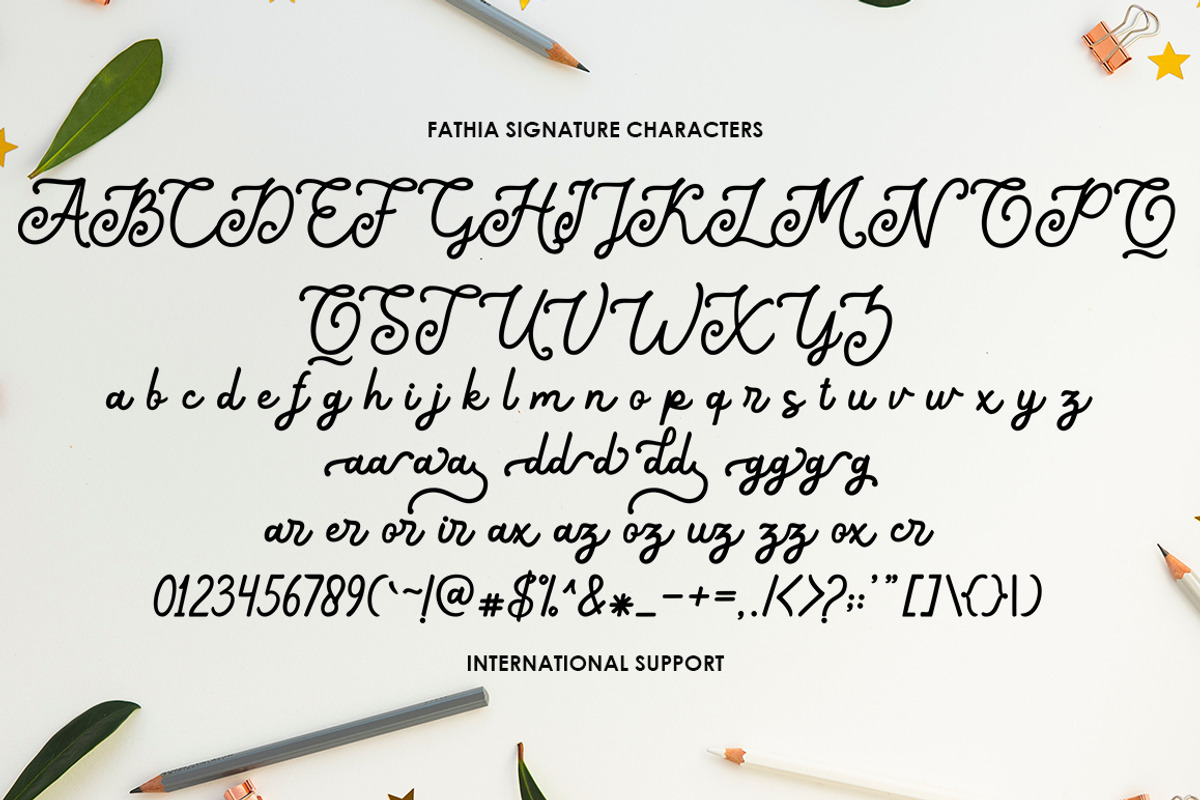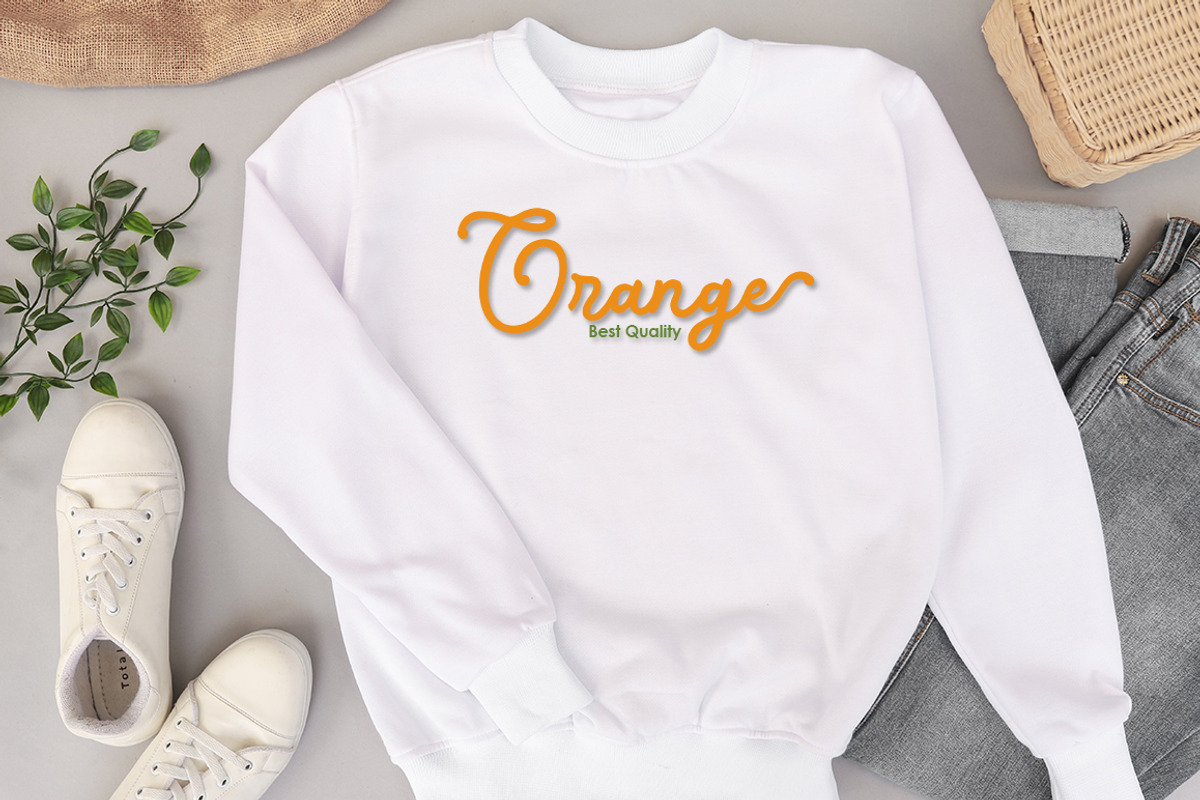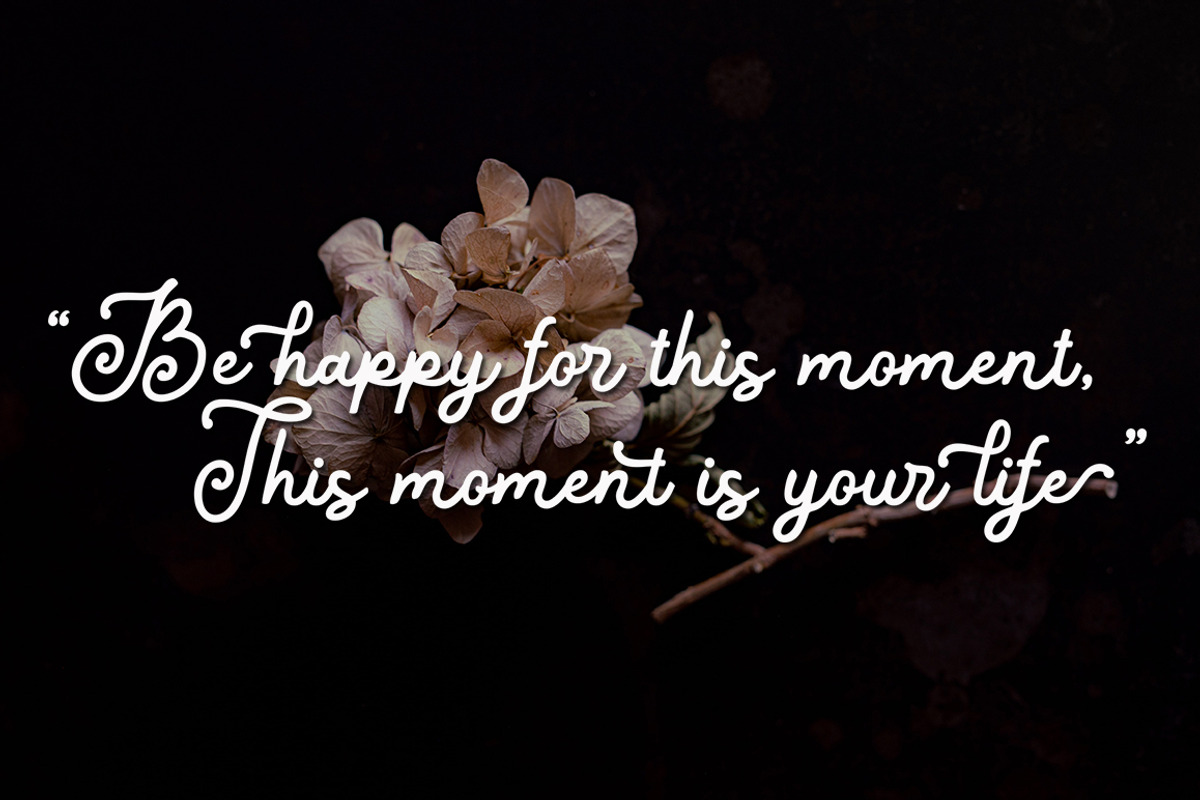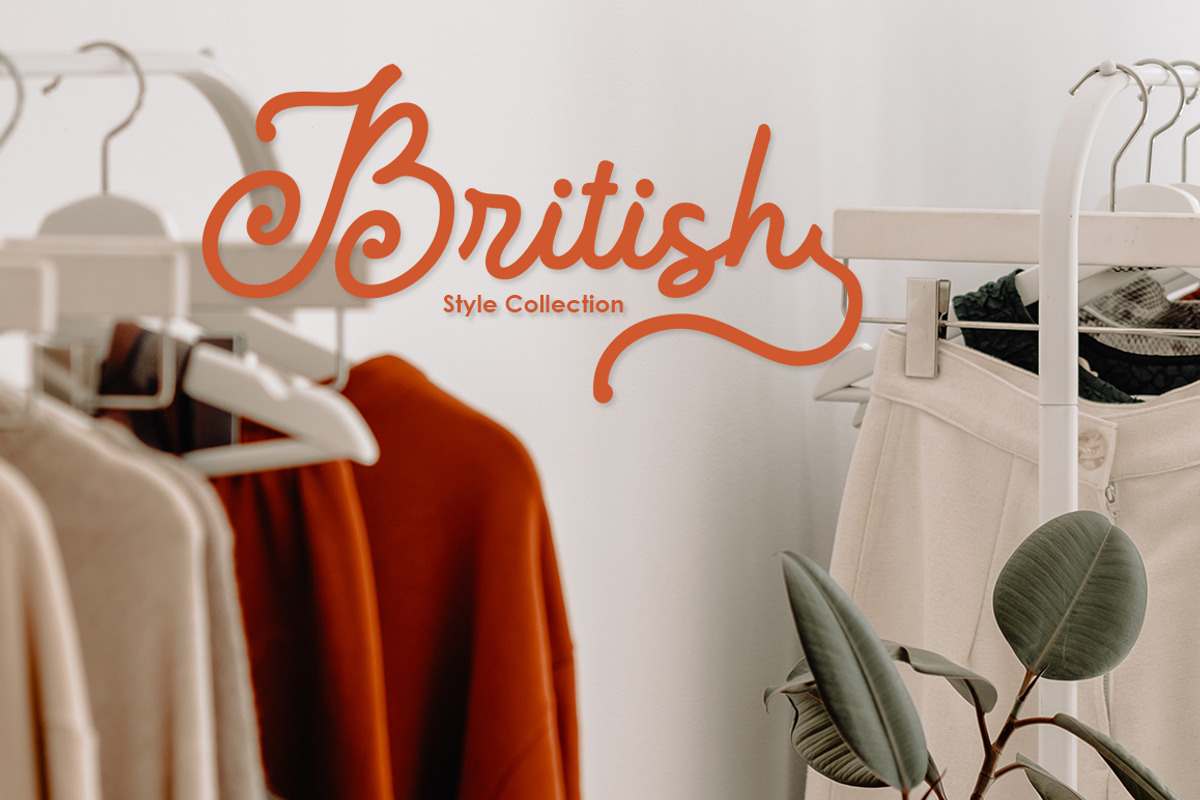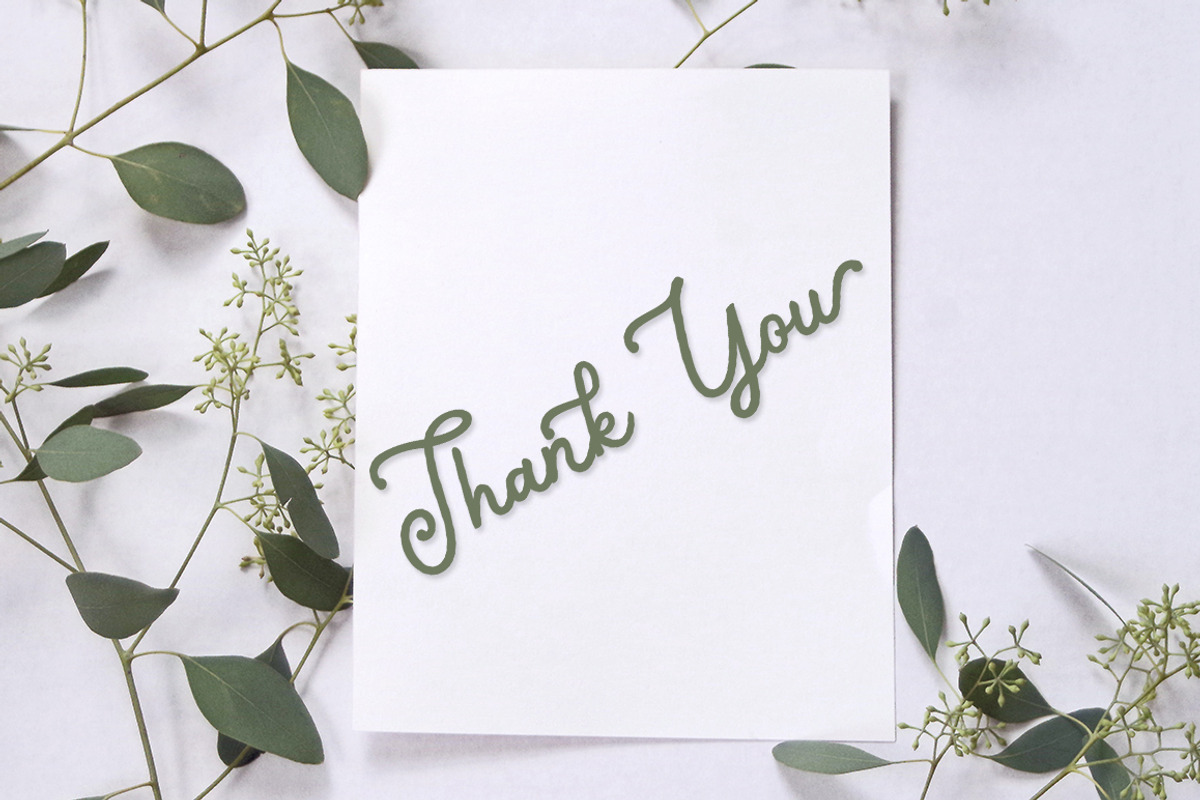
Fathia Signature
Fathia Signature is highly legible Monoline Script typeface, get touch of a bold, classic and fun Vintage Script font, With glyphs and opentype features with stylistic alternates. Can be used for various purposes. such as posters, t-shirt, signage, logos, news, badges etc. To enable the OpenType Stylistic alternates, you need a program that supports OpenType features such as Adobe Illustrator CS, Adobe Indesign & CorelDraw X6-X7, Microsoft Word 2010 or later versions.